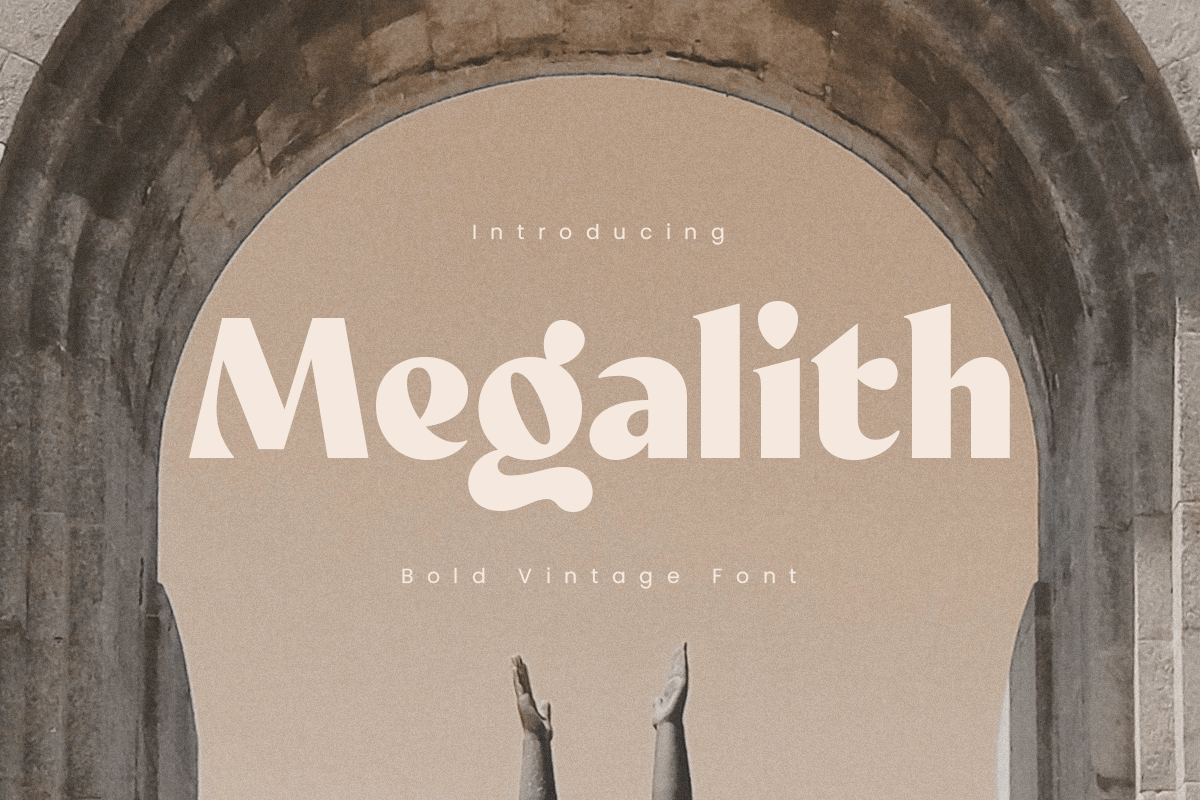
Megalith
-Bold Vintage FontMegalith is a bold vintage font that captures the spirit of timeless design with its strong, confident letterforms and retro appeal. Ideal for projects that need an impactful yet classic touch, Megalith brings boldness and character to your logos, posters, and branding efforts, making your message stand out with a unique flair.
Inspired by old-school type and retro aesthetics, Megalith delivers a rustic, nostalgic look while maintaining modern usability. Its well-crafted, distinctive shapes make it a versatile choice for various design projects, including headlines, event promotions, and apparel design. The font’s boldness paired with vintage charm ensures a memorable visual presence.
Choose Megalith to add a layer of sophistication and bold energy to your designs. This typeface combines the essence of vintage with a contemporary edge, making it a must-have in any designer’s toolkit looking to create standout, classic projects.